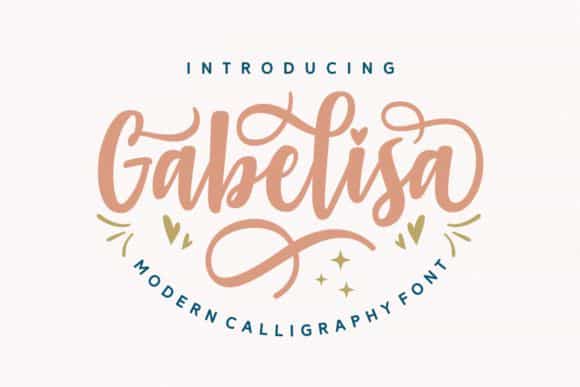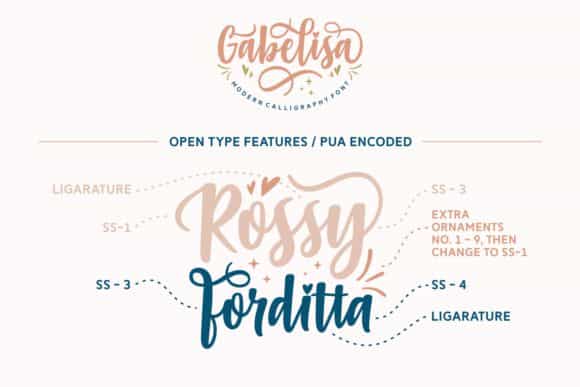
Introducing Gabelisa Font. Gabelisa is an extremely beautiful display font that will add a touch of luxury to your designs. This thin, curly font with a lot of stylistic alternates will help you to make interesting and unusual designs for any project. This is a font that can be used in both modern and retro designs.